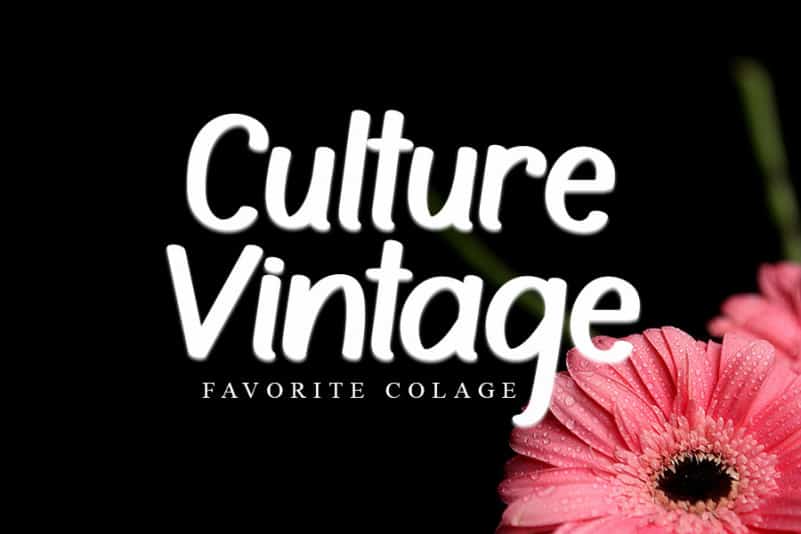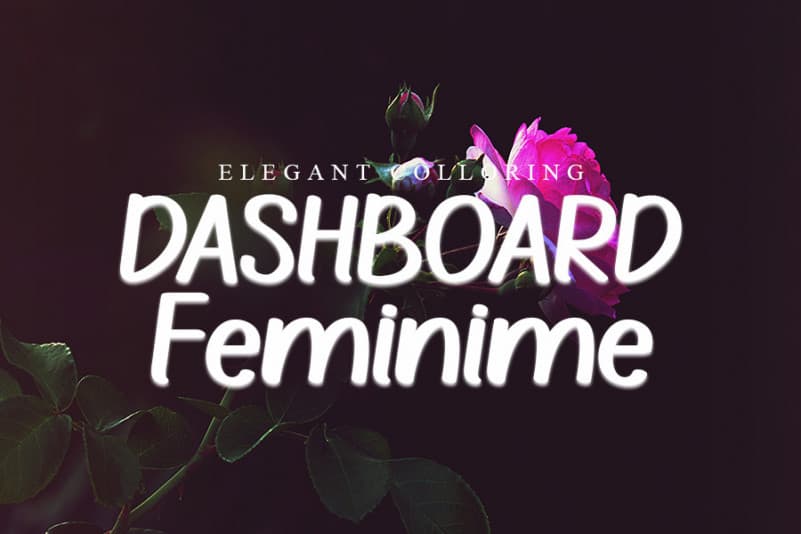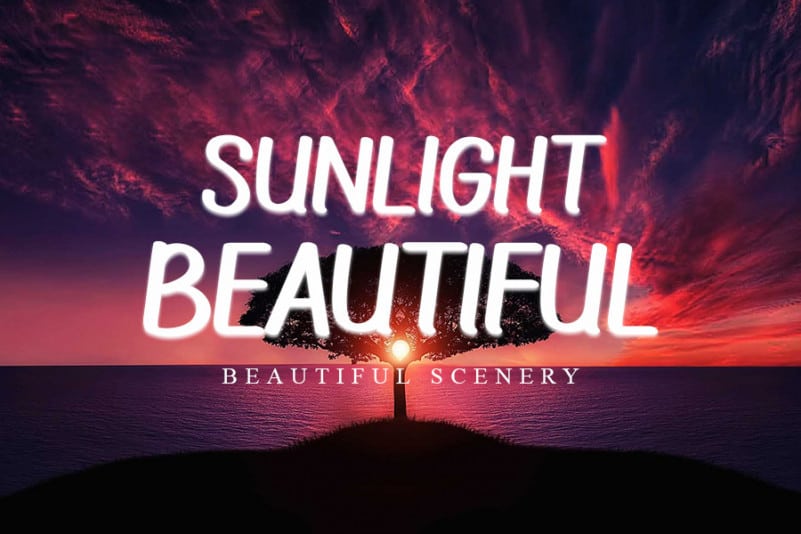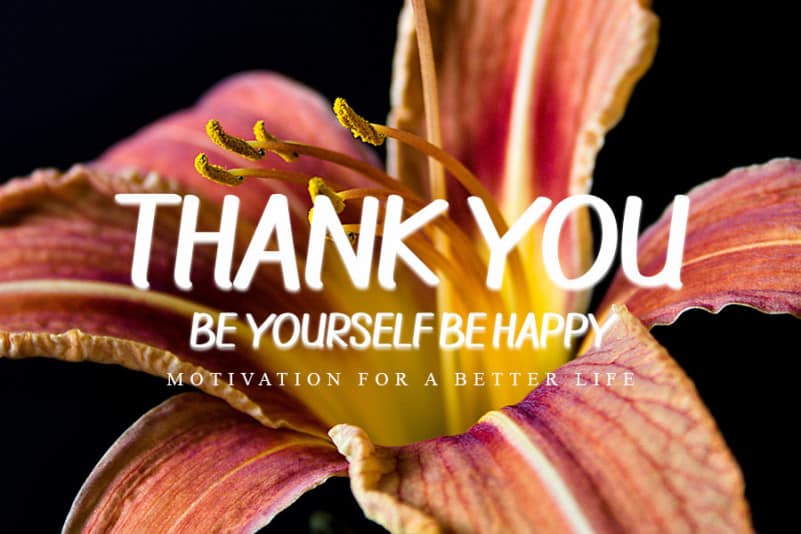
Ballpoint Script Font is a neat lettered handwritten font, created with the help of a brush pen. Its casual style will appeal to a wide range of crafty ideas, from letterheads and titles, to stationery.